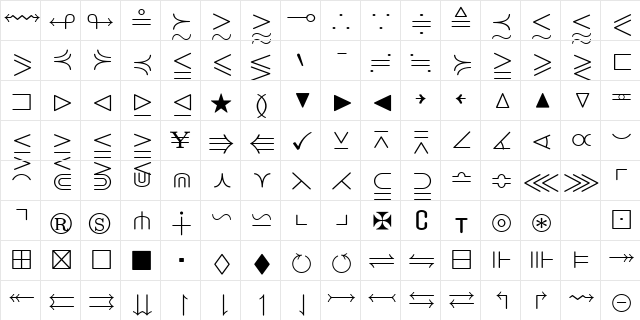
msam6 Regular Font Preview
msam6 Regular
msam6 Regular Font Details
Design Context for msam6 Typeface
msam6 is a composed and adaptable typeface that performs quietly and consistently across a wide range of design contexts.